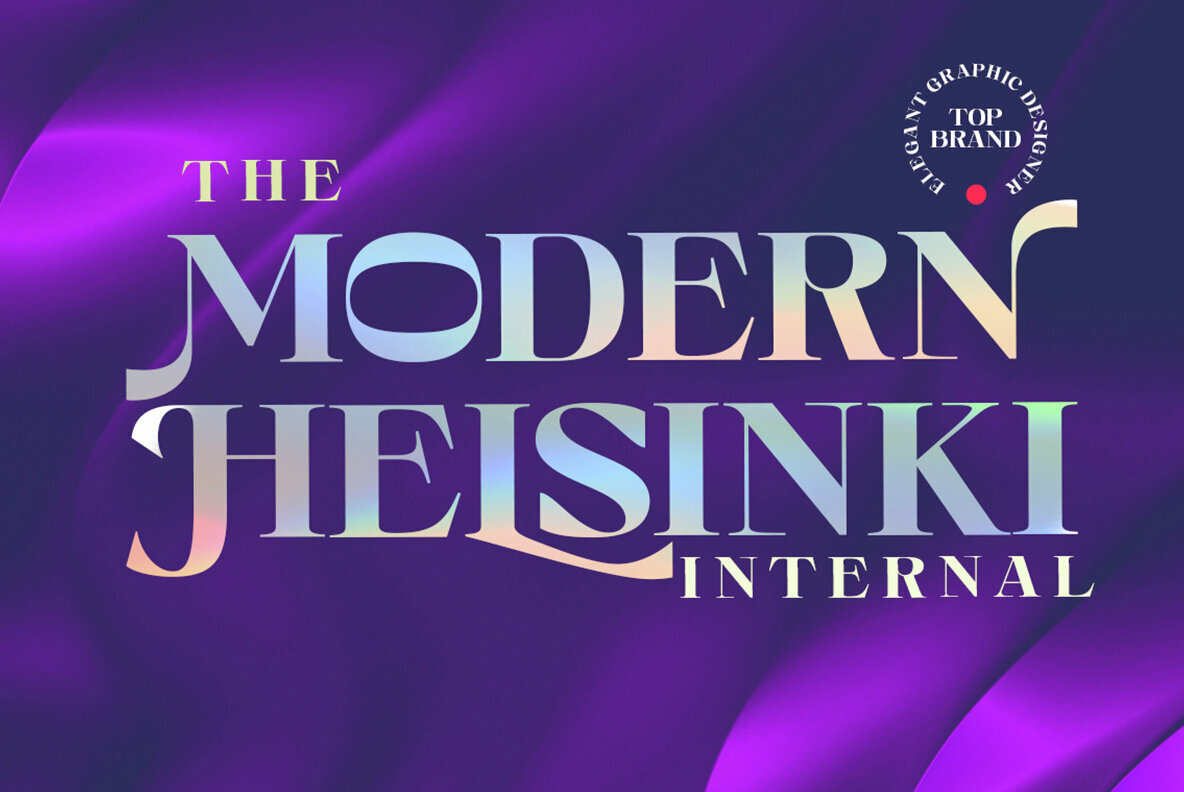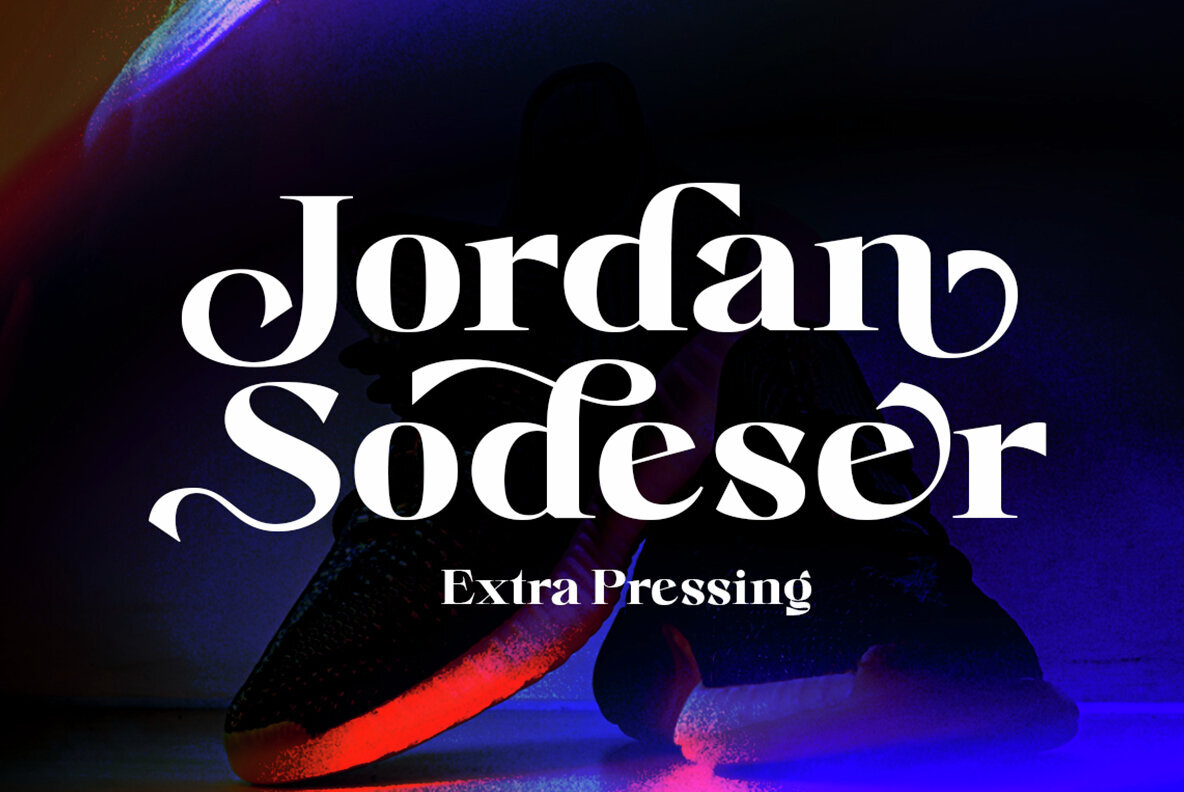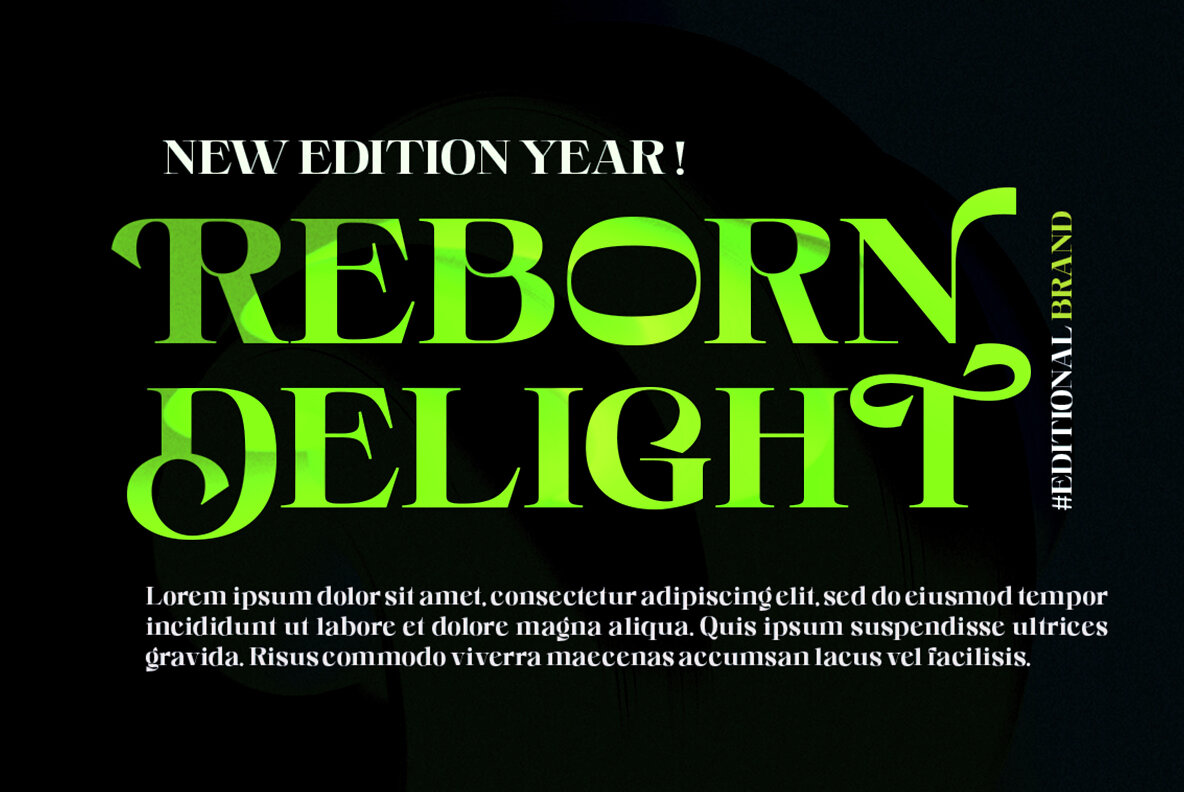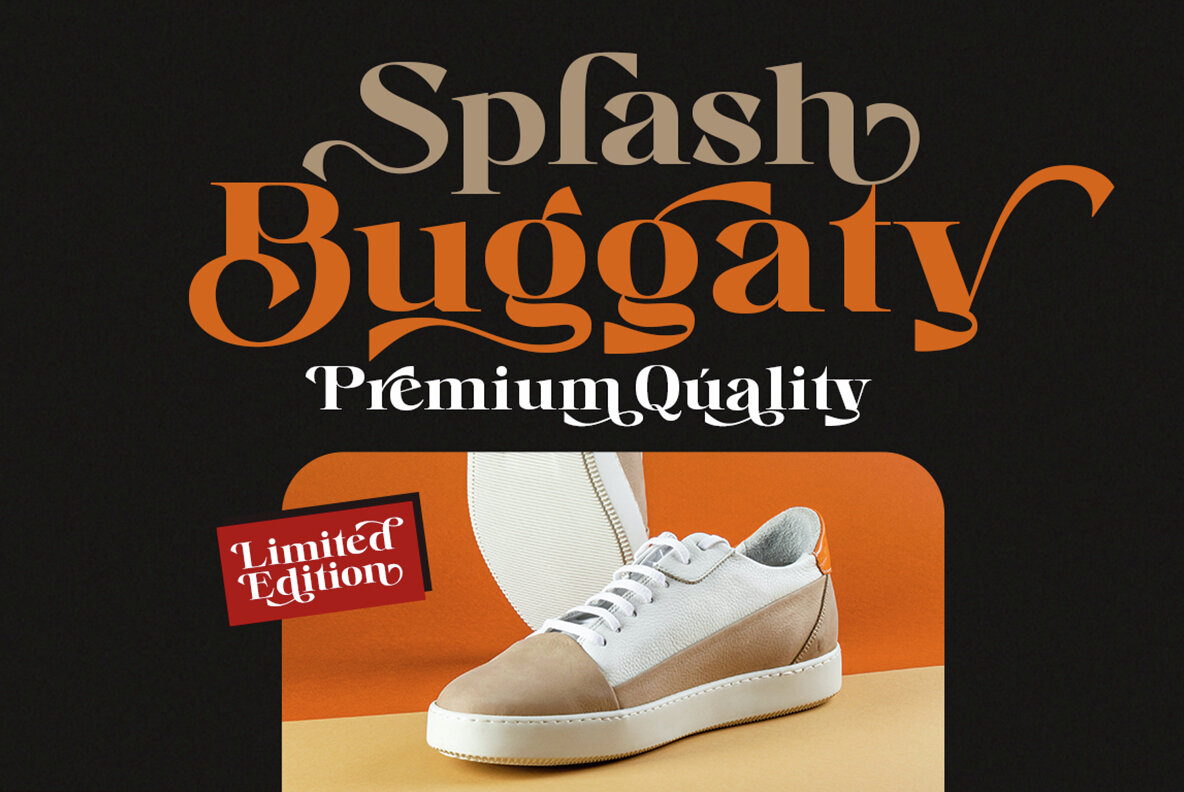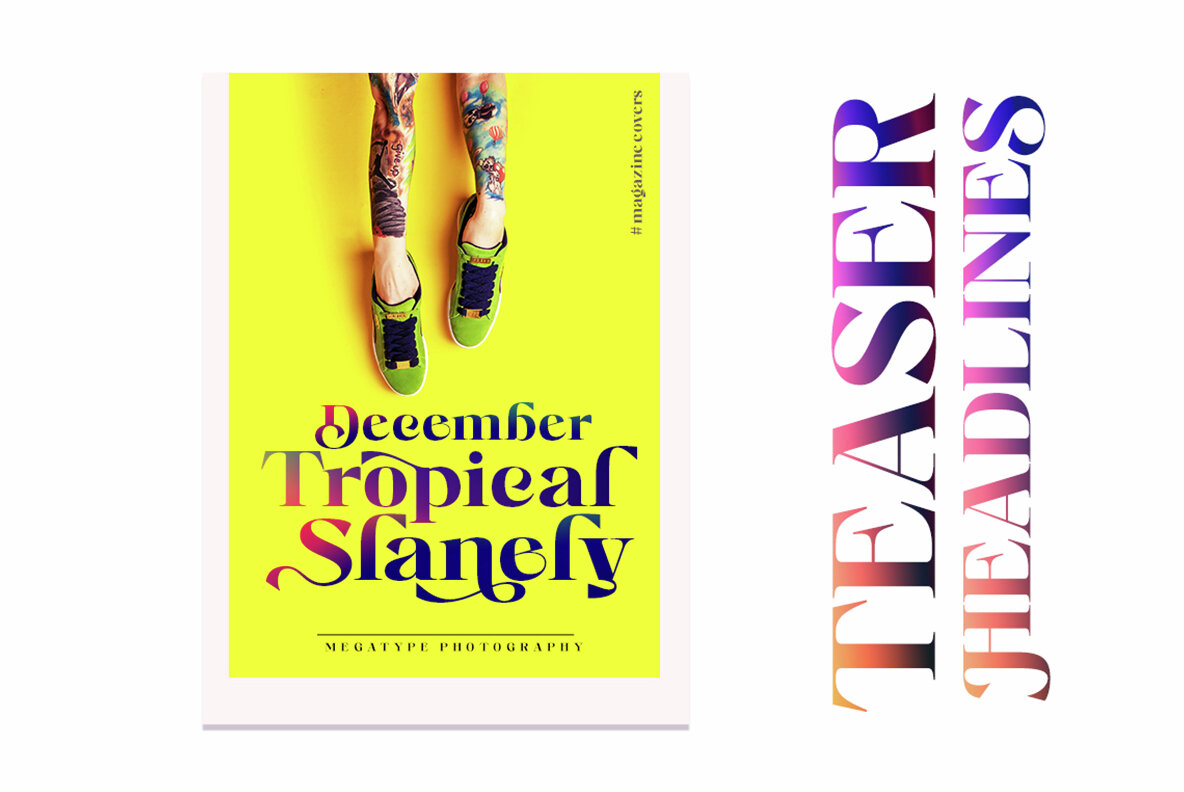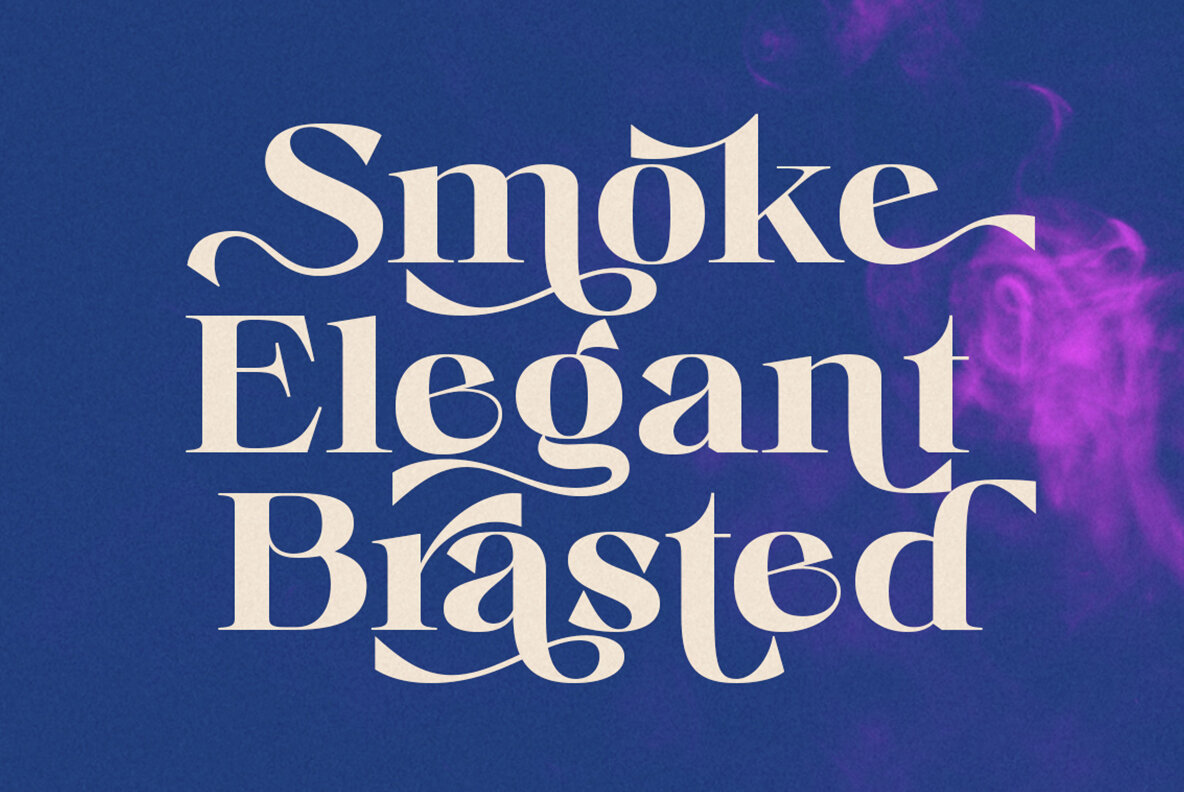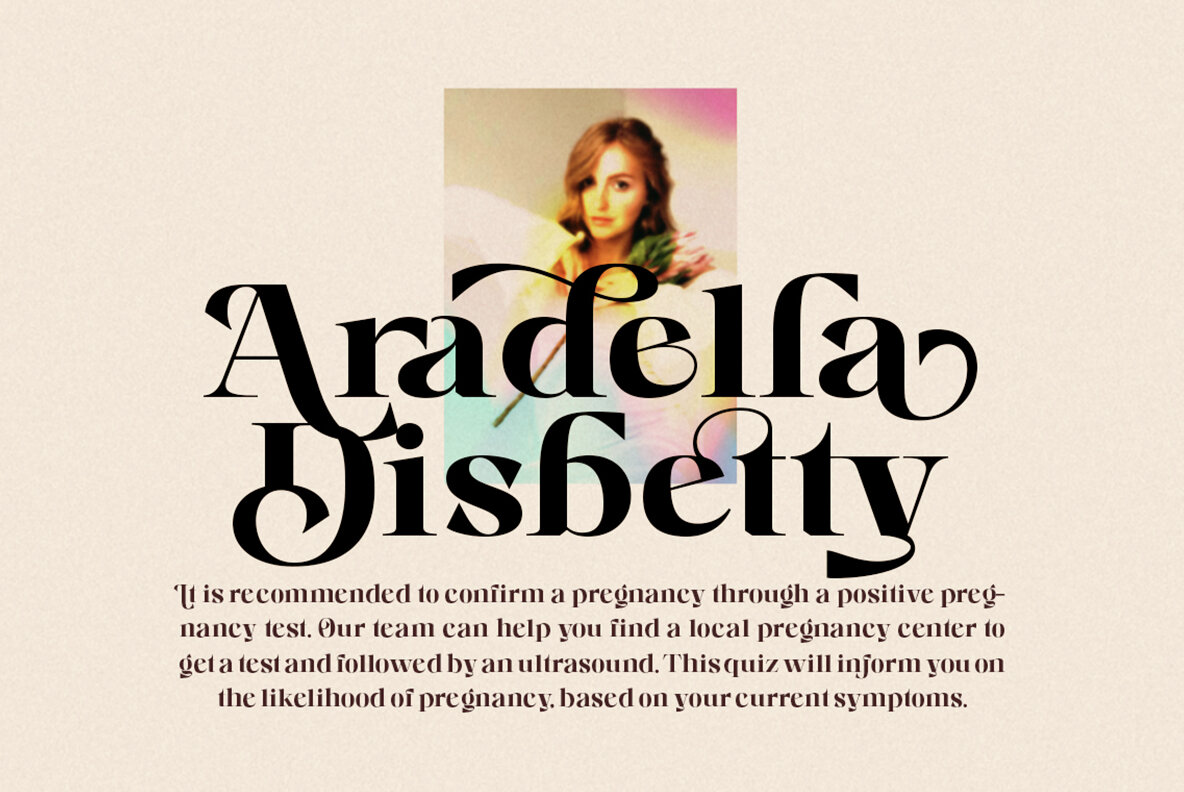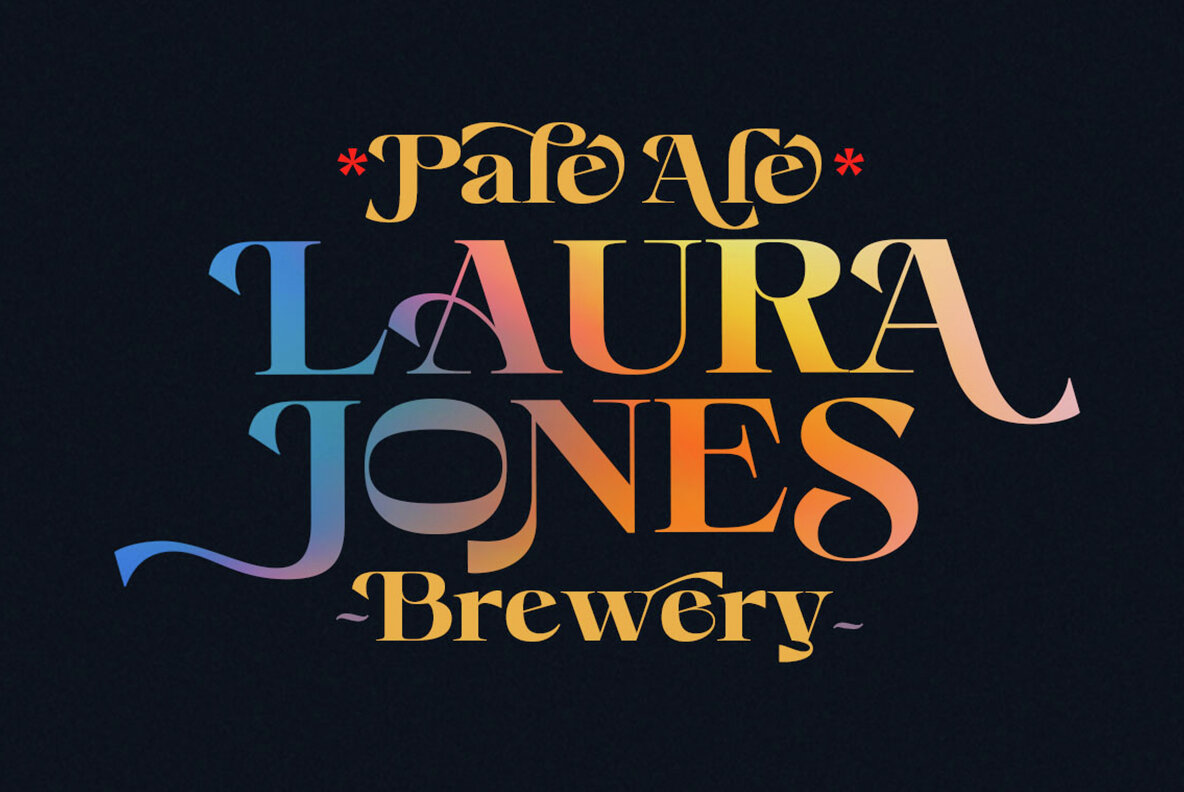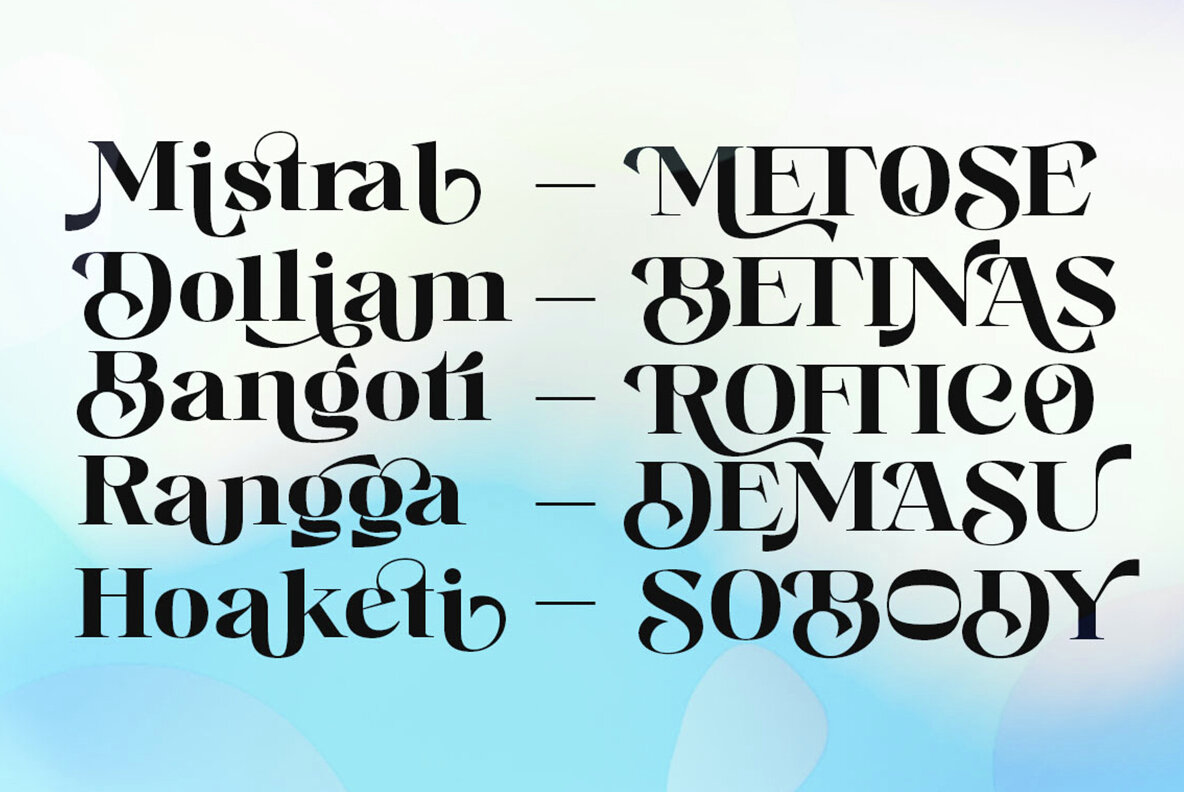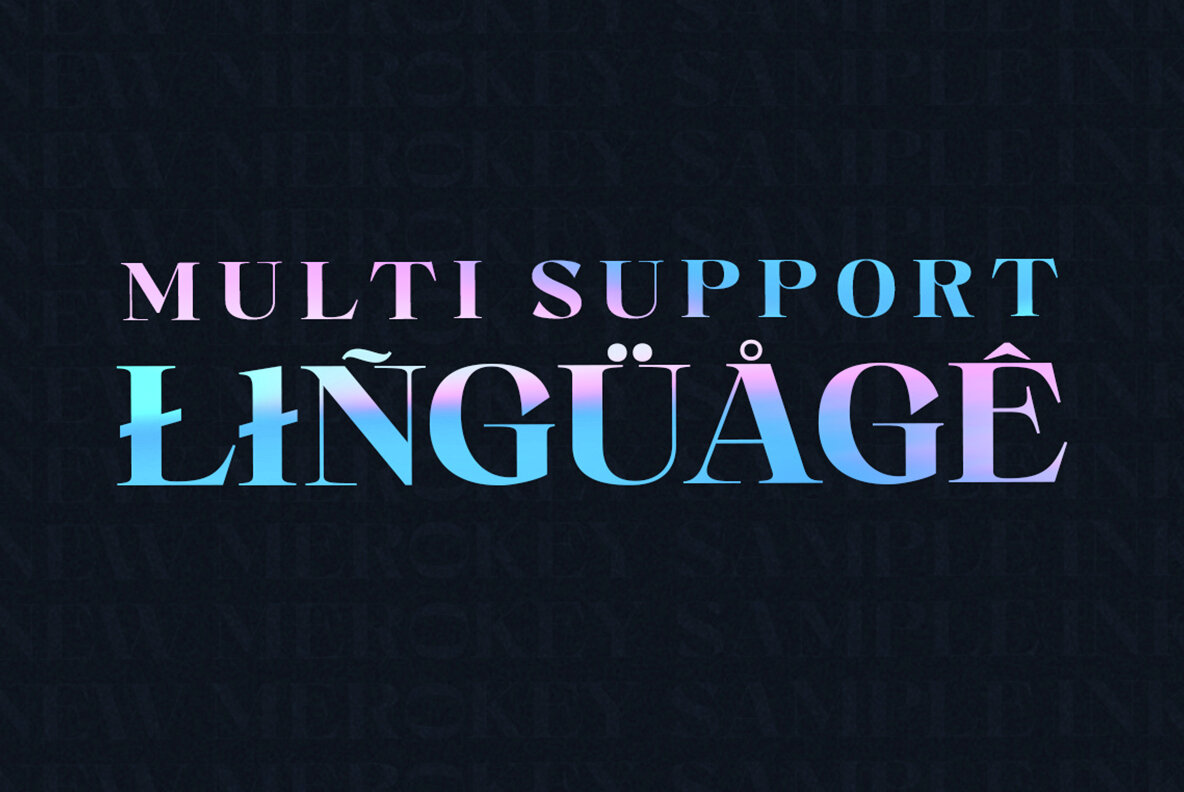
Megaki Font
Megaki Regular
Megaki is a Serif Display Font characterized by its modern, classy, and versatile style. It performs beautifully at display sizes while maintaining readability at text sizes. Featuring over 500 unique glyphs, including alternatives and ligatures, Megaki is ideal for a wide range of design projects. Megaki is suited for multiple creative projects, including: Enjoy the flexibility and elegance of Megaki in enhancing your design projects.Megaki: Versatile Serif Display Font
Ideal for Diverse Applications